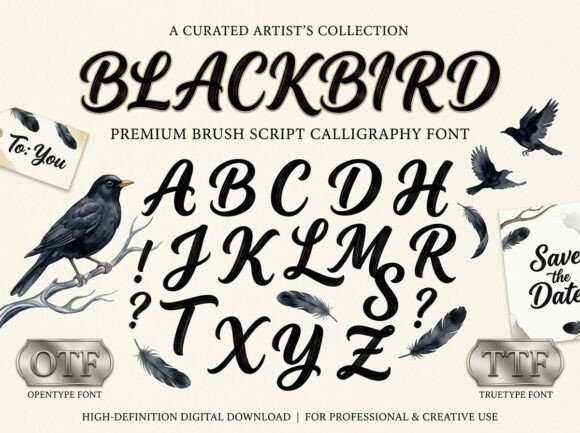
Where Creativity Takes Flight
Have you ever sat in front of a blank page, feeling the urge to create something beautiful, yet struggling to find the right words? We’ve all been there. It’s in those moments that the perfect font can make all the difference. For designers seeking to elevate their work, the Blackbird Font is a game-changer.
This stunning premium brush script calligraphy font is designed to add a touch of soulful elegance to any project. With its bold, rhythmic strokes and authentic “ink-on-paper” texture, Blackbird Font captures the essence of hand-painted art. Whether you’re working on a high-end branding project or a bespoke wedding invitation, this font is the perfect choice to make your designs stand out.
As a designer, you know the value of having the right tools at your fingertips. The Blackbird Font is a valuable addition to any creative arsenal, offering high-definition detail and a unique “boutique-art” aesthetic that will elevate your work to new heights.
Key Features of Blackbird Font
- Unique Characteristics: Blackbird Font features a modern and elegant design, with a unique blend of geometric and organic shapes, making it perfect for corporate and luxury brands.
Blackbird Font Review
As a designer, I’ve had the chance to work with the Blackbird Font, and I have to say it’s a decent addition to any design arsenal. ✨ One of the things that really stands out is its elegant, refined feel – it’s perfect for creating a sophisticated and professional look.
Here are some of the key strengths I’ve noticed:
- ✨ Beautiful calligraphy and script elements that add a touch of elegance to any design.
- ✨ Excellent legibility, even at small font sizes.
- ✨ A wide range of language support, making it a great choice for multilingual designs.
- ⚠️ The font may not be as versatile as some other options, and it’s best suited for more formal or traditional designs.
- ⚠️ Some users may find the font a bit too ornate or elaborate, which can be overwhelming in certain contexts.
Overall, I’d say the Blackbird Font is a solid choice for designers who want to create high-end, sophisticated designs. While it may not be the most versatile font, it’s perfect for specific applications where elegance and refinement are key.
Blackbird Font Practical Application Guide
The Blackbird font is ideal for creative projects, such as:
Book covers and titles
Magazine and newspaper headings
Advertising and marketing materials
Tips for Getting the Most Out of Blackbird
Experiment with different font sizes and styles to create visual interest and emphasis.
Combine Blackbird with other fonts to create a unique and eye-catching design.
Use the font’s various weights and styles to add depth and hierarchy to your text.
Alternatives to Blackbird Font
Blackbird Font is a sans-serif typeface known for its clean and modern design. Here are some alternatives for designers:
Montserrat is a sans-serif typeface designed for digital use. It features a geometric and urban feel, making it ideal for headings and titles in modern designs. Montserrat is more geometric and urban compared to Blackbird Font, which has a more rounded feel.
Open Sans is a modern sans-serif typeface designed for legibility. It features a clean and simple design, making it suitable for body text and long-form content. Open Sans is more neutral and versatile compared to Blackbird Font, which has a more distinctive personality.